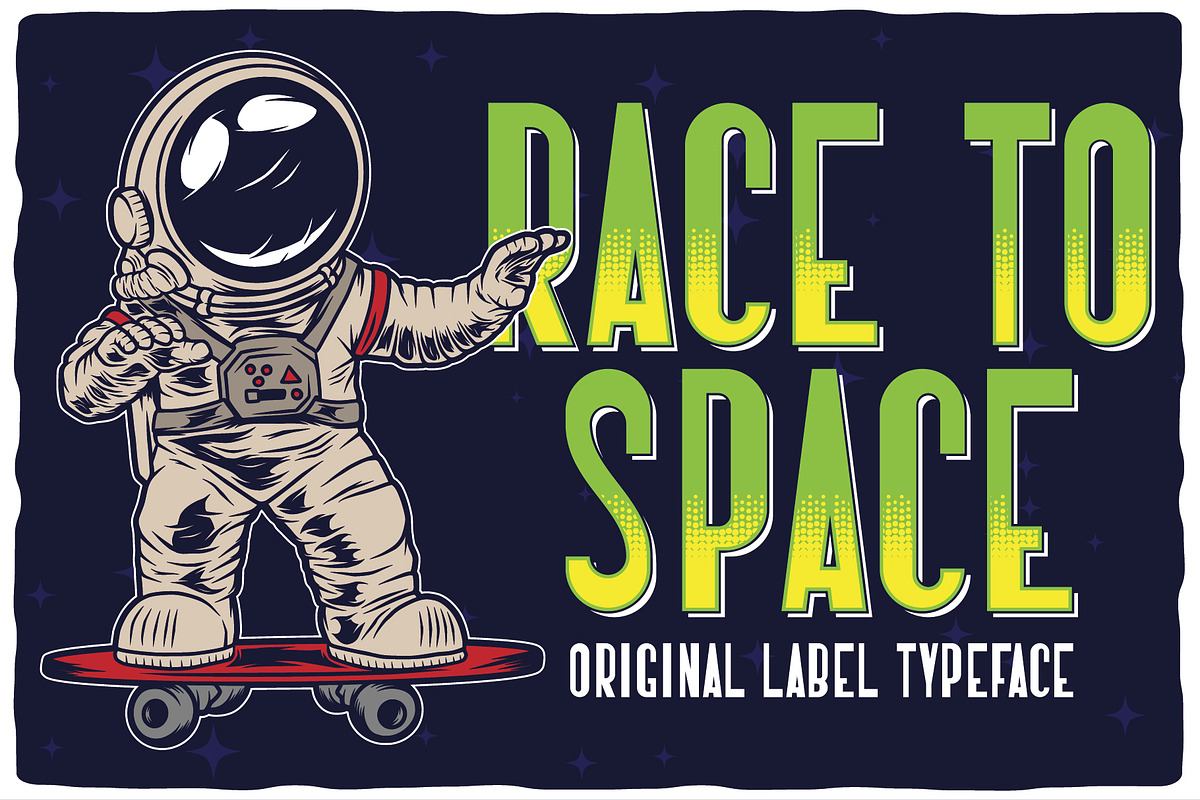
Race To Space Font Free Download is a futuristic and playful display typeface inspired by retro sci-fi themes and the excitement of intergalactic adventure. With its bold curves, space-age styling, and dynamic character design, this font is perfect for children’s books, science-themed posters, tech branding, space exploration graphics, and STEM educational materials.
Whether you’re designing for a rocket launch party invite, a sci-fi game interface, or a classroom project, Race To Space adds an energetic and imaginative feel that captures the wonder of the cosmos.